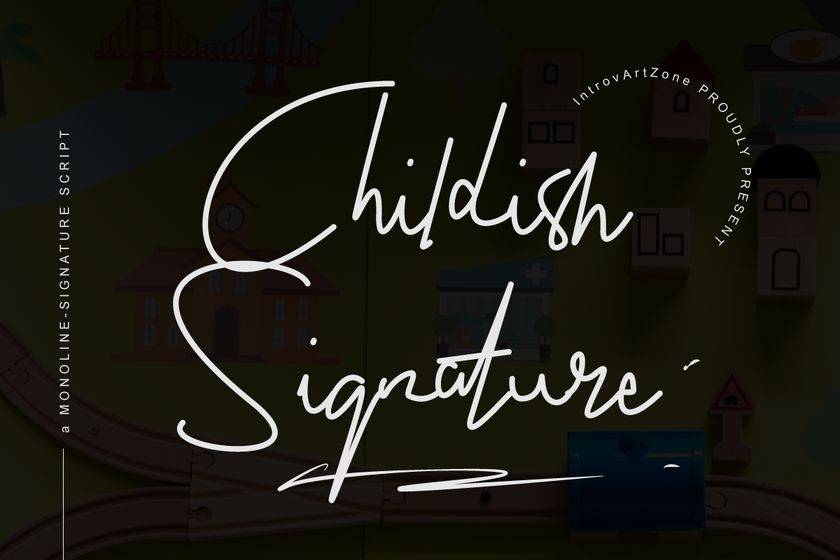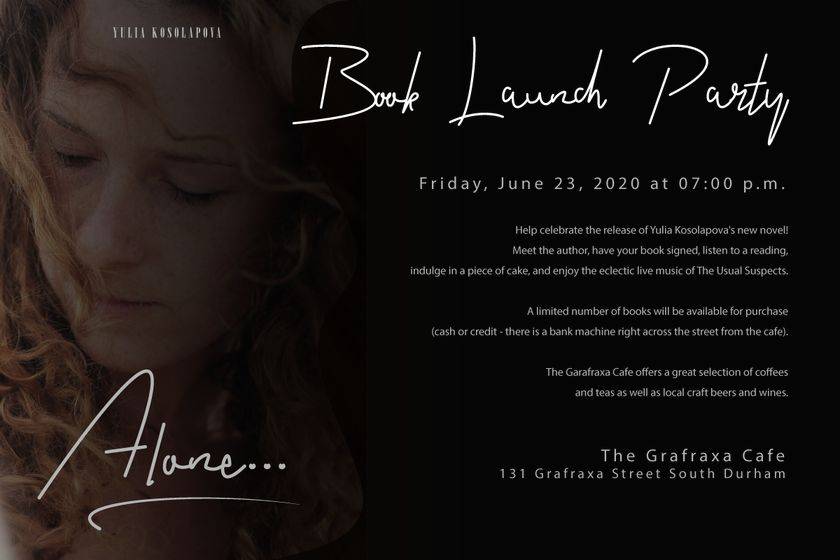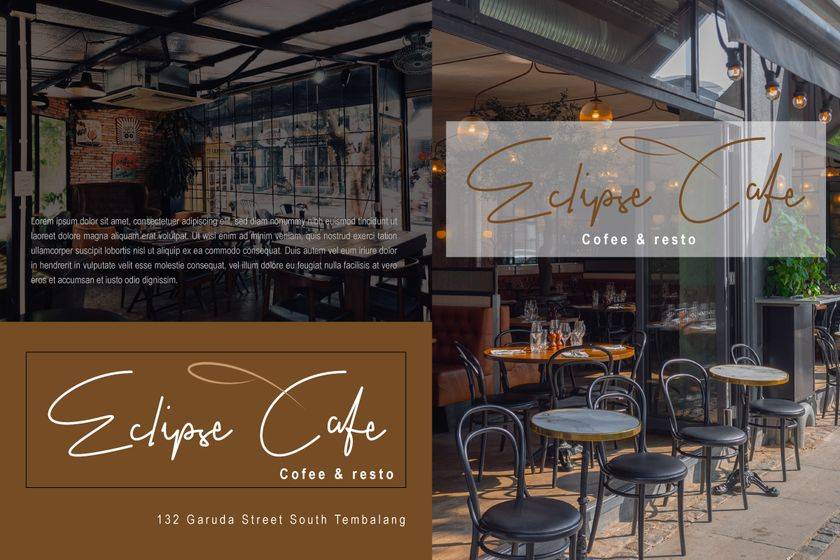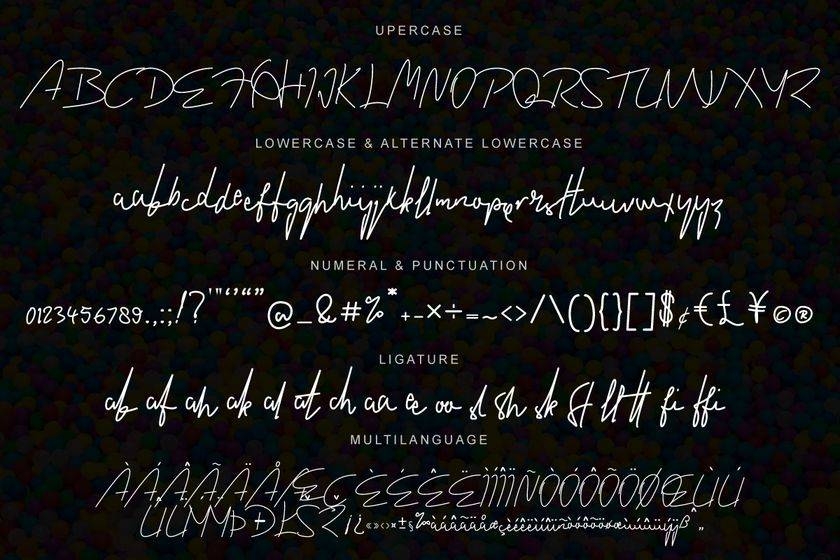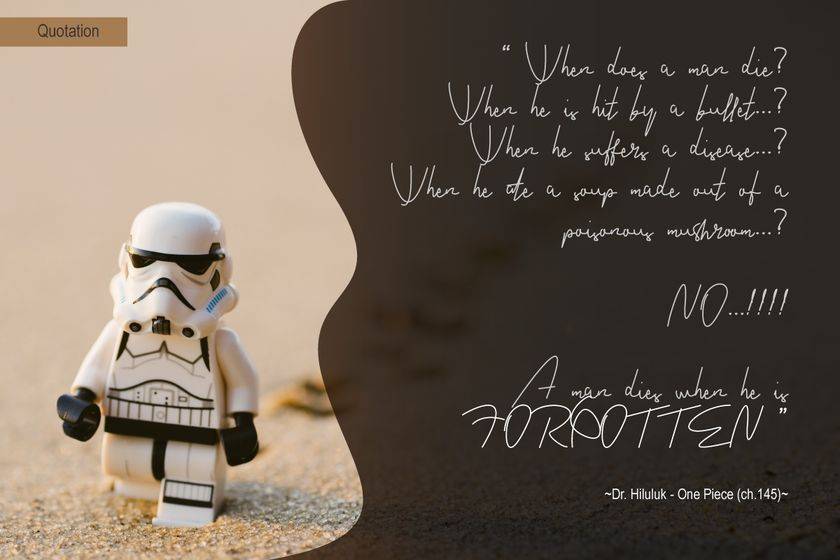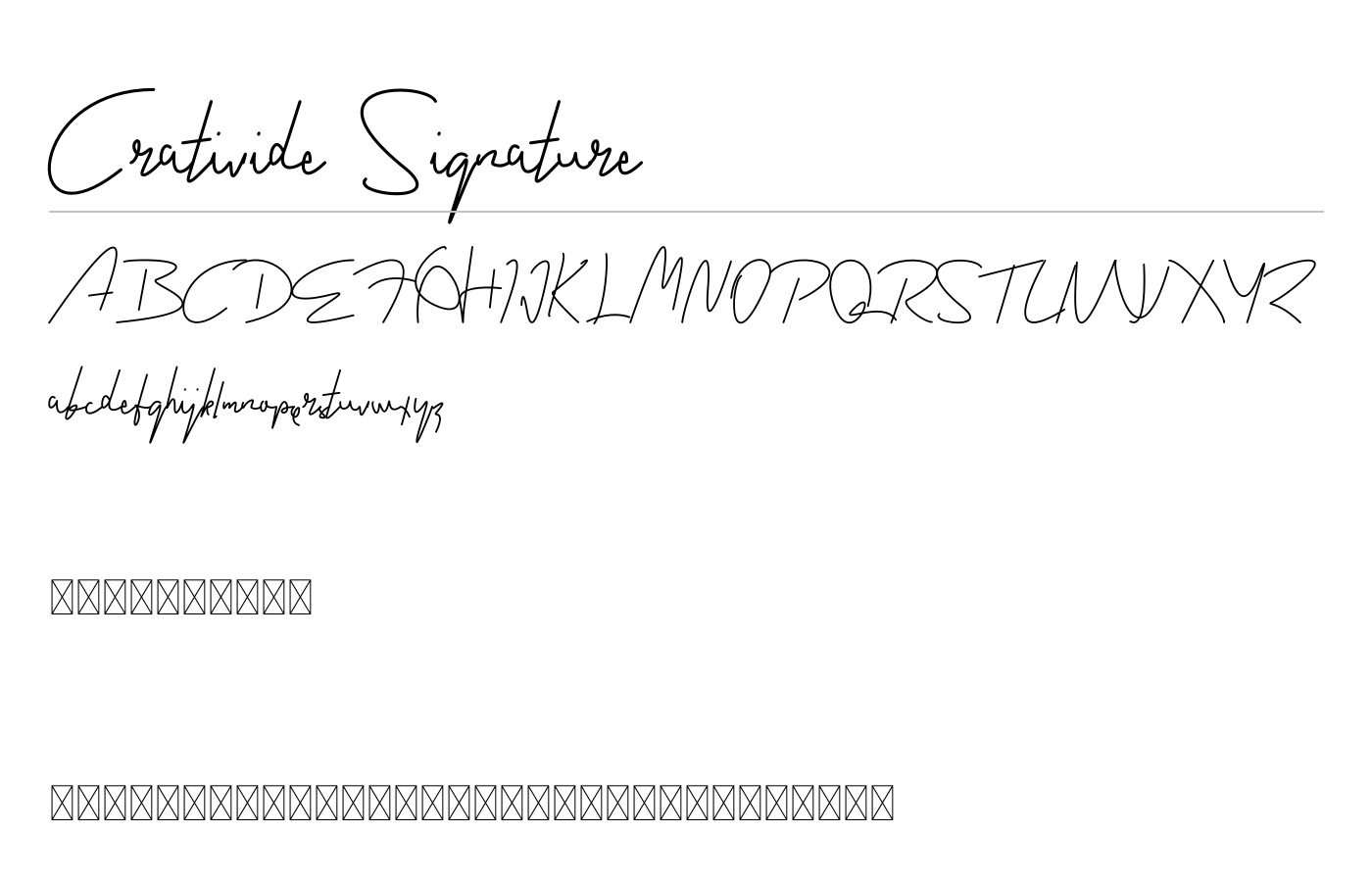
Childish Signature Font is a delicate, handwritten script with a light weight and narrow width, evoking a playful and informal feel. Its tall, flowing letterforms with irregular strokes give it an organic, authentic signature style, ideal for adding a personal touch to branding, invitations, or creative projects. This font works best where a casual, artistic vibe is desired, making designs feel approachable and unique.
Childish Signature Font
About Childish Signature Font
| Font family | Childish Signature Font |
| Designer | RudiWin |